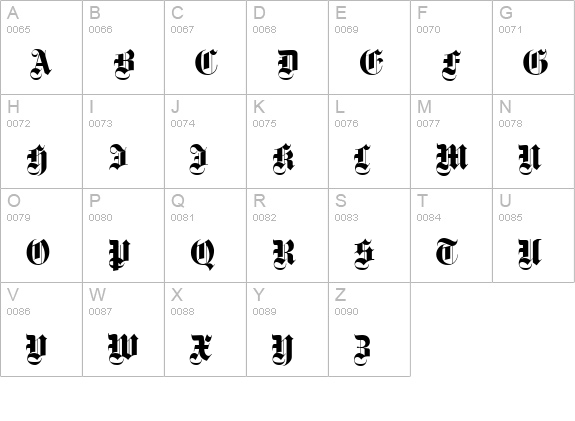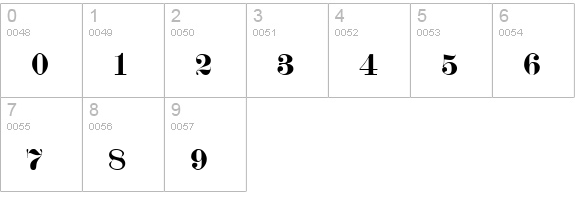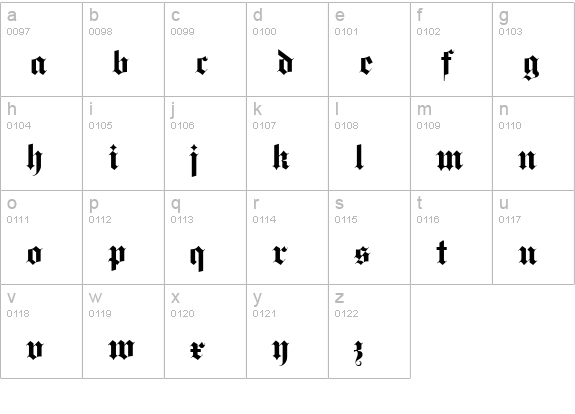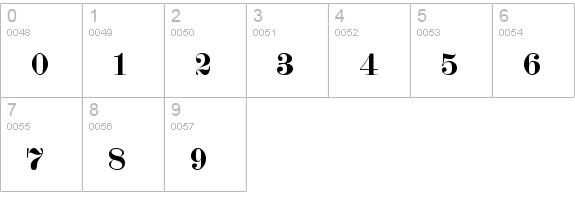
Gothique MN Font Details
Gothique MN font is a stunning display typeface that exudes elegance and sophistication. Its intricate details and gothic-inspired design make it a perfect choice for projects that require a touch of mystery and drama. The sharp edges and bold strokes of this font give it a unique and edgy look that is sure to make a statement. Best of all, Gothique MN font is available for free download at FontsMarket.com. This means that you can easily access this beautiful font and use it in your projects without any cost. Whether you are working on a graphic design project, creating invitations, or designing a website, Gothique MN font will add a touch of elegance and style to your work. Download it today and elevate your designs with this stunning typeface.